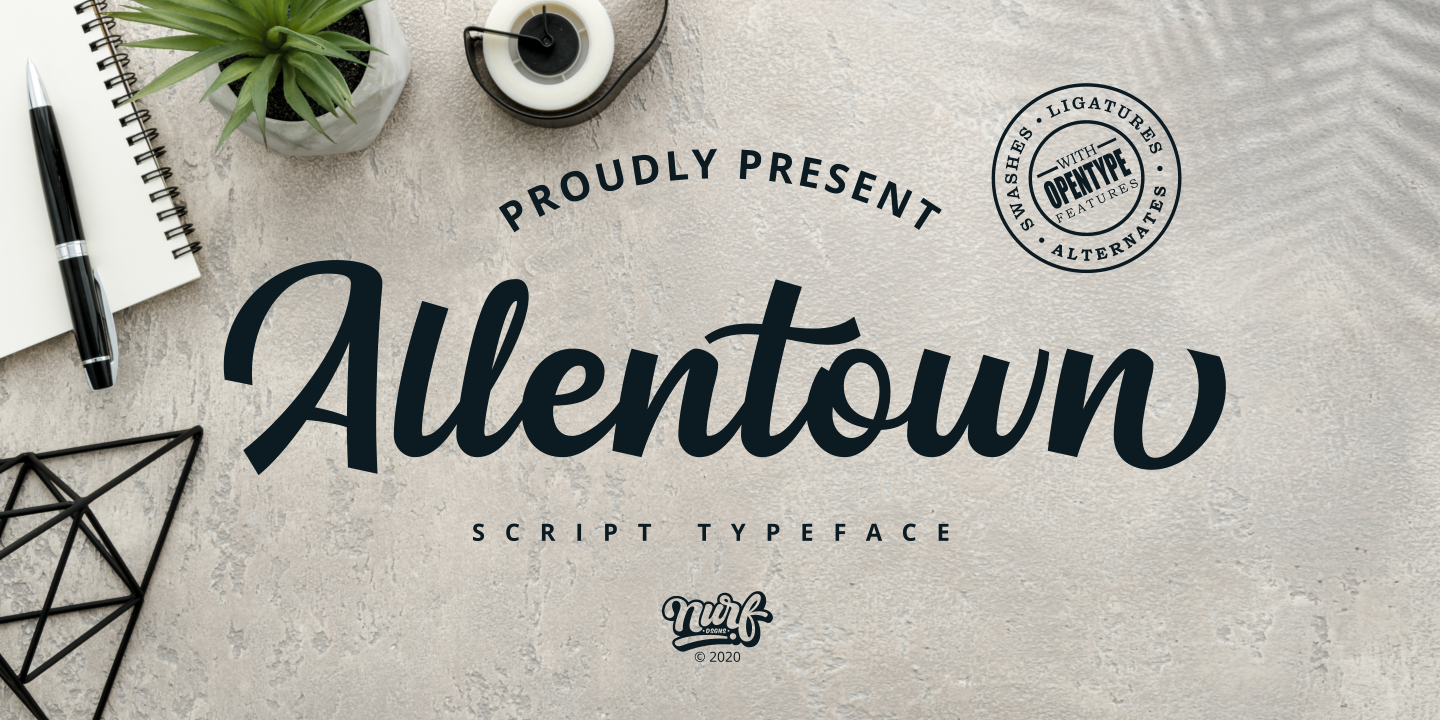
Allentown Font Free Download – Urban and Bold Typeface for Modern Designs
Looking to add a strong, urban vibe to your projects? Allentown Font Free Download is a bold and versatile typeface that fits perfectly with streetwear brands, posters, logos, and digital content. Its thick, solid lines deliver a powerful and confident presence.
Allentown is designed for maximum impact, making your headlines and branding stand out in a crowded marketplace. Whether you're working on print or web design, this font ensures readability with a distinctive edge.
Boost your typography with Allentown — a font that’s ready to make your designs loud and clear.